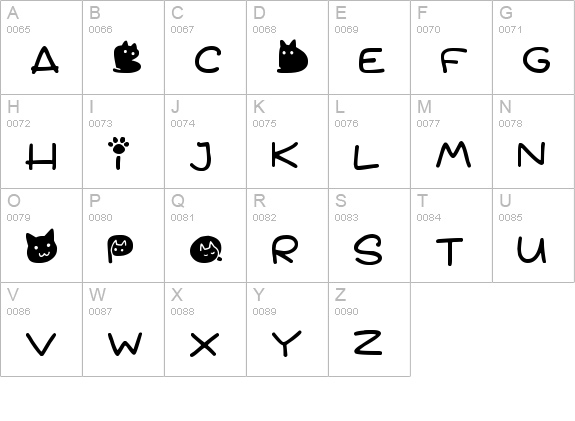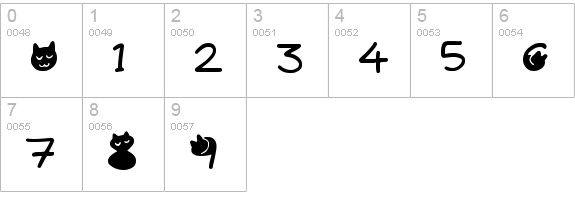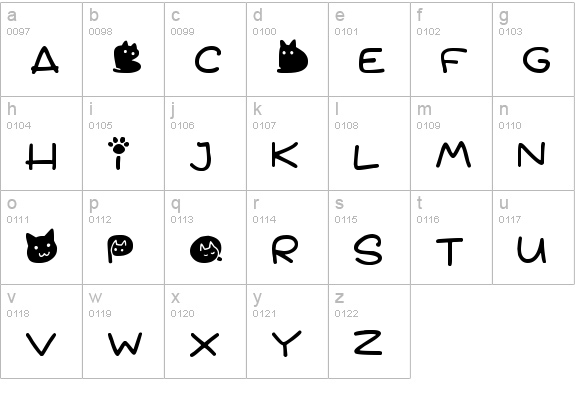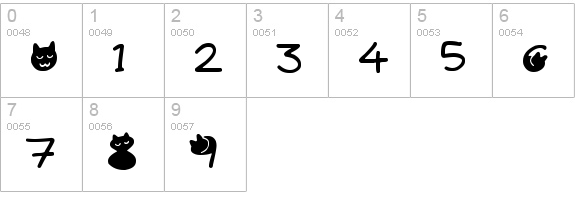
Quiet Meows Font Details
Quiet Meows font is a charming and elegant typeface that exudes a sense of sophistication and grace. With its delicate strokes and unique design, this font is perfect for adding a touch of refinement to any project. The soft curves and subtle details of Quiet Meows create a harmonious balance that is both soothing and visually appealing.
This versatile font is ideal for a wide range of applications, from branding and packaging to invitations and social media graphics. Whether you're looking to create a calming and serene atmosphere or add a touch of whimsy to your designs, Quiet Meows is sure to impress.